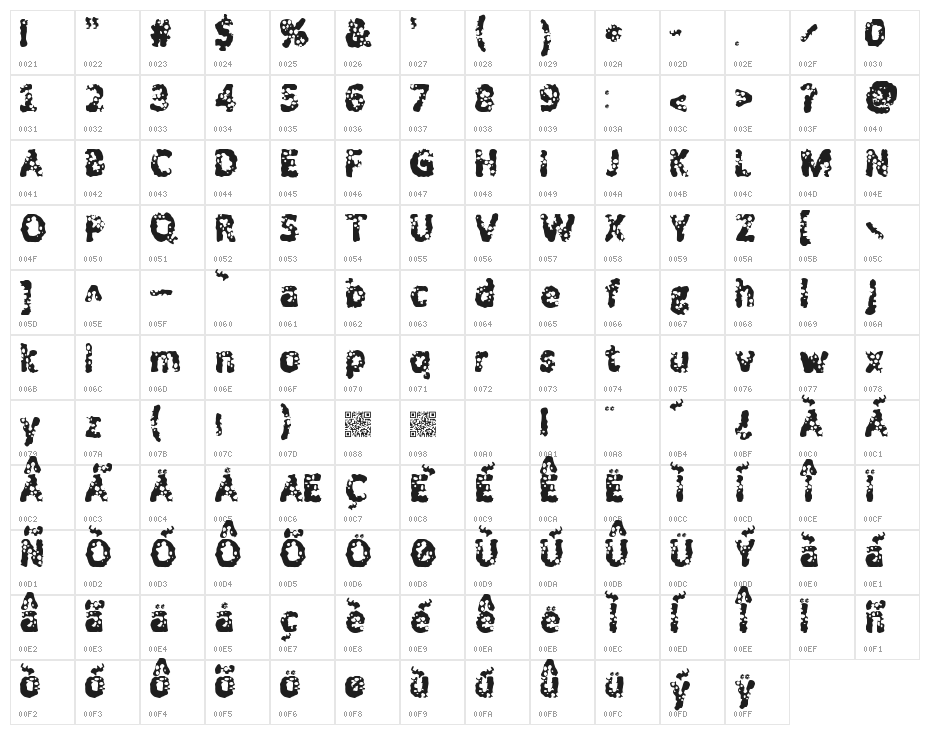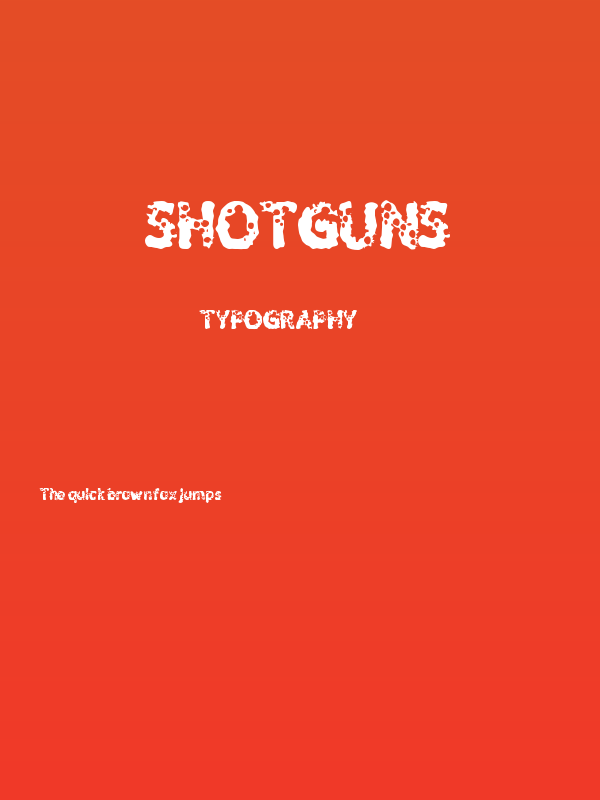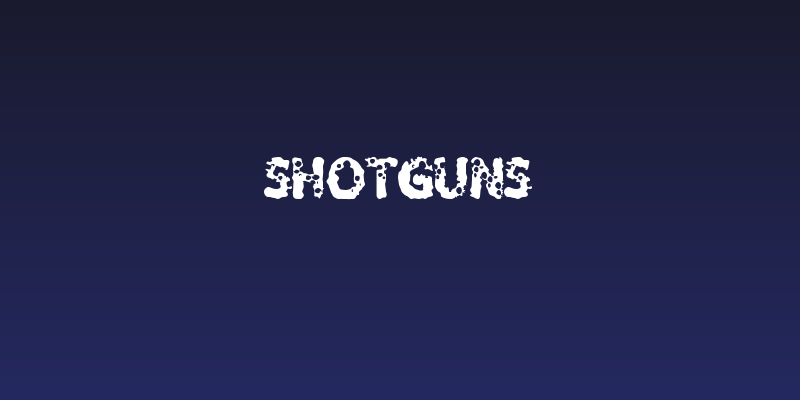
ShotGuns Font
ShotGuns Description
This font features a bold and rugged design with a distressed, grunge-like appearance. Each character is heavily textured, giving the impression of being eroded or splattered, which adds a dynamic and edgy feel. The uppercase and lowercase letters maintain a consistent style, with irregular edges and a bold presence. Numbers and special characters follow the same aesthetic, ensuring a cohesive look across all text elements. The font's unique style makes it stand out, capturing attention with its unconventional and artistic flair.
| Proposed Projects | Ideal for music album covers, edgy posters, streetwear branding, or any project requiring a bold, artistic statement. |